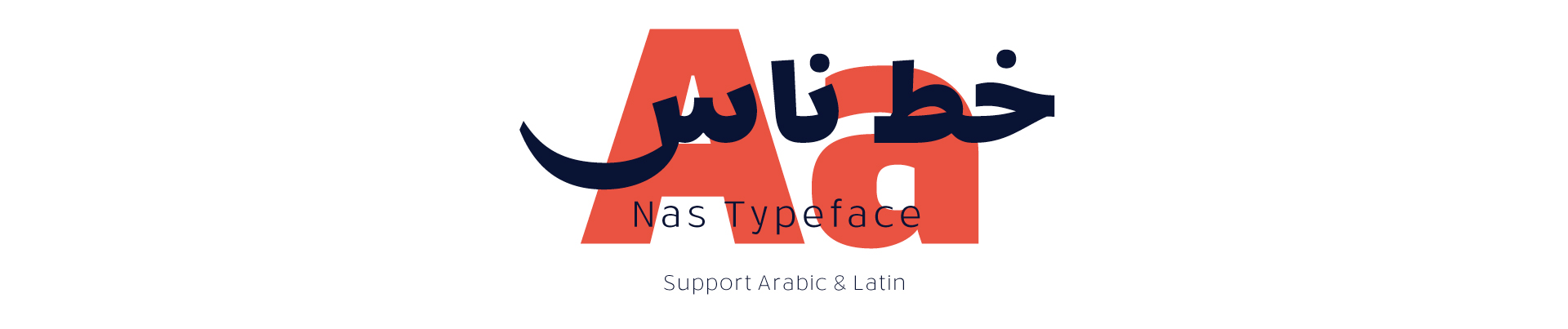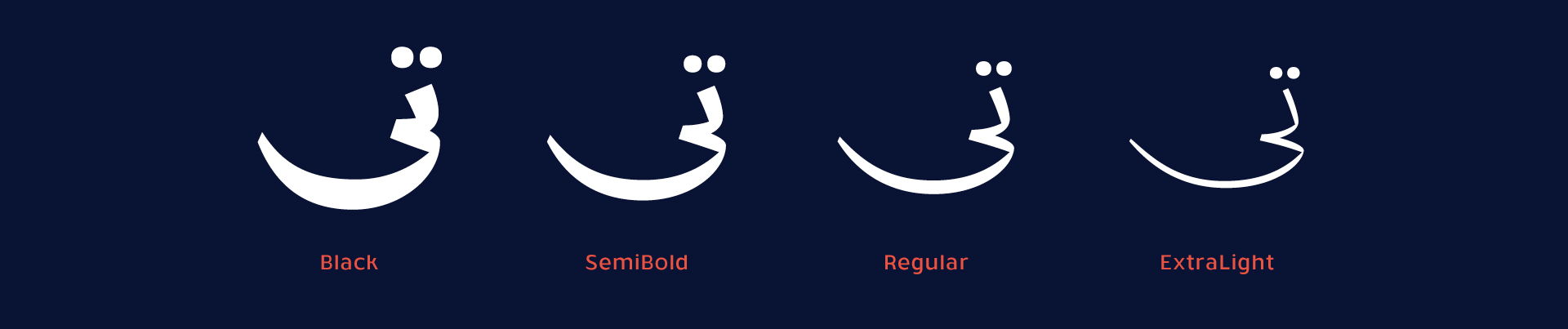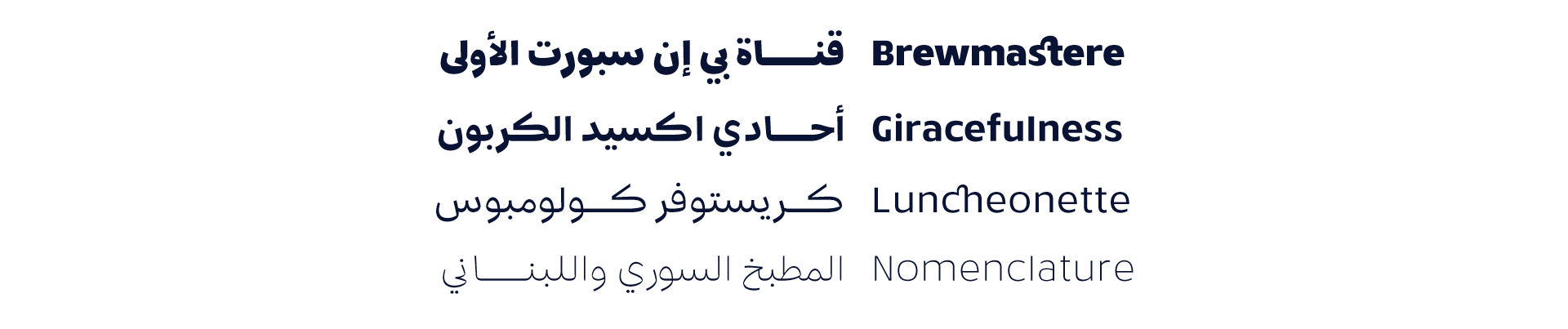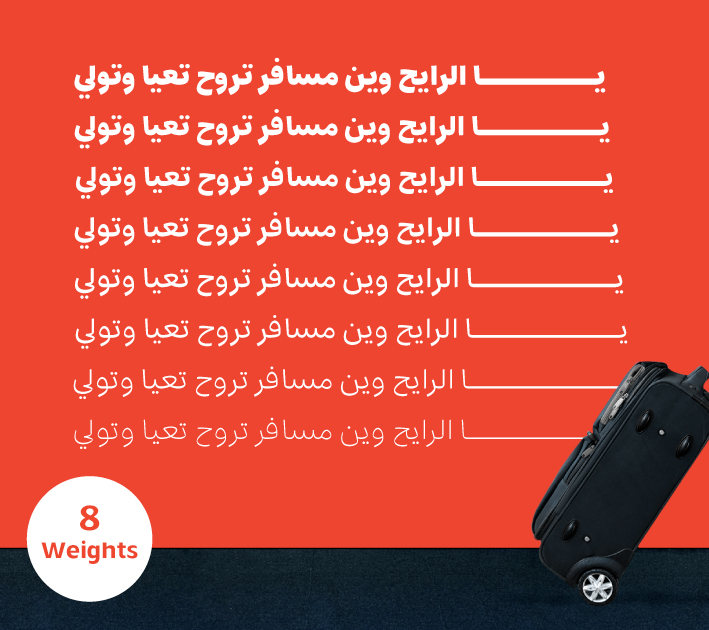
About Nas Font
Introduction:
Nas means people in Arabic. NAS is a new font of modern Naskh script simple and easy to read that addresses human nature with a touch of novelty that we have added to the letters’ design.
Weights and Languages:
Nas Font consists of 8 weights. It supports Latin and Arabic.
Usage:
The font is used in headlines, texts, websites, social media posters, visual identities, and printing.
Designing & Developing:
TSfonts Type Foundry
Tarek Alsawwa